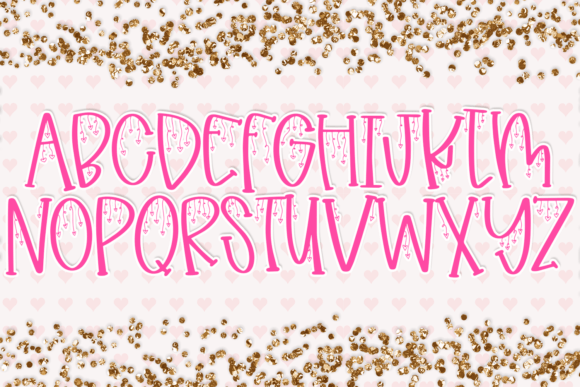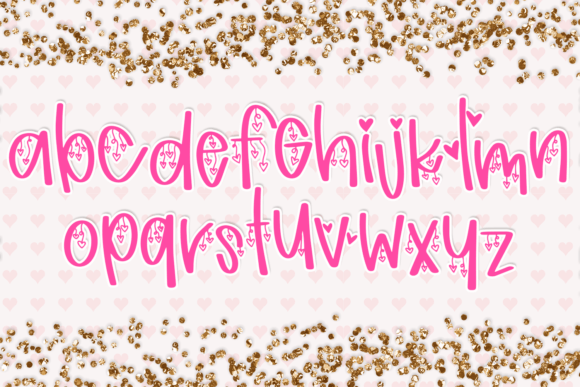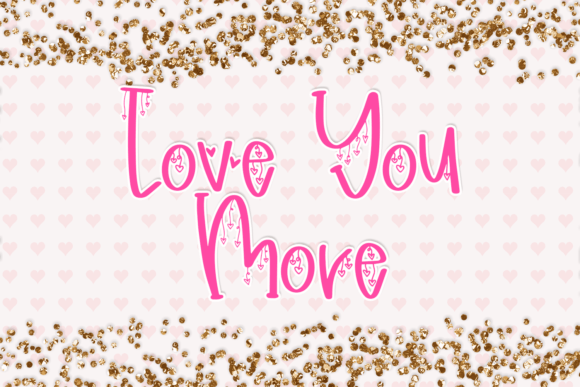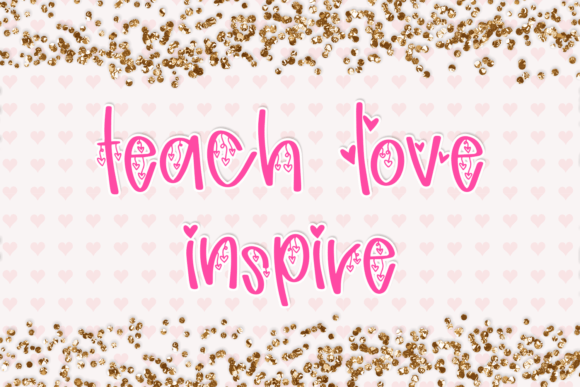
Introducing Hanging Hearts Font: The Perfect Valentine’s Day Companion for Designers and Crafters
Valentine’s Day is just around the corner, and what better way to get into the spirit than with a beautiful, unique font that screams love and festivity? We’re excited to introduce Hanging Hearts, a fun and playful Valentine’s Day font that’s sure to capture the hearts of designers and crafters alike. This handwritten display font is specially designed to add a touch of whimsy and romance to your Valentine’s Day crafts, designs, and products.
What Makes Hanging Hearts Font So Special?
Hanging Hearts font is a one-of-a-kind, handwritten display font that features both uppercase and lowercase letters, with a special twist – hanging hearts! That’s right; each letter is adorned with a heart, making it the perfect addition to any Valentine’s Day project. Whether you’re creating greeting cards, party decorations, or social media graphics, this font is sure to make your designs stand out.
Key Features of Hanging Hearts Font
- Handwritten Display Font: Hanging Hearts font has a playful, handwritten feel that’s perfect for creating festive and fun designs.
- Uppercase and Lowercase Letters: The font includes both uppercase and lowercase letters, giving you flexibility and versatility in your designs.
- Hanging Hearts: Each letter features a hanging heart, adding a touch of romance and whimsy to your designs.
- Perfect for Valentine’s Day: This font is specially designed for Valentine’s Day, making it the perfect addition to your holiday designs and crafts.
Uses for Hanging Hearts Font
So, how can you use Hanging Hearts font in your designs and crafts? The possibilities are endless! Here are a few ideas to get you started:
- Valentine’s Day Greeting Cards: Create beautiful, one-of-a-kind greeting cards for your loved ones using Hanging Hearts font.
- Party Decorations: Use the font to create festive party decorations, such as banners, garlands, and signs.
- Social Media Graphics: Add a touch of Valentine’s Day magic to your social media graphics, such as Facebook posts, Instagram stories, and Twitter headers.
- Crafts: Use Hanging Hearts font to create handmade crafts, such as scrapbook pages, journal entries, and paper crafts.
- Digital Products: Create digital products, such as printable art, SVG files, and digital planners, using Hanging Hearts font.
Tips for Using Hanging Hearts Font
Here are a few tips for using Hanging Hearts font in your designs and crafts:
- Experiment with Colors: Try pairing Hanging Hearts font with different colors and textures to create unique and eye-catching designs.
- Mix and Match: Combine Hanging Hearts font with other fonts and graphics to create interesting and layered designs.
- Pay Attention to Scale: Make sure to adjust the scale of the font to fit your design, and don’t be afraid to experiment with different sizes.
We’re thrilled to introduce Hanging Hearts font, the perfect Valentine’s Day companion for designers and crafters. With its playful, handwritten feel and adorable hanging hearts, this font is sure to add a touch of romance and whimsy to your designs and crafts. Whether you’re creating greeting cards, party decorations, or social media graphics, Hanging Hearts font is the perfect choice. So why wait? Download Hanging Hearts font today and start creating your own unique Valentine’s Day designs and crafts!